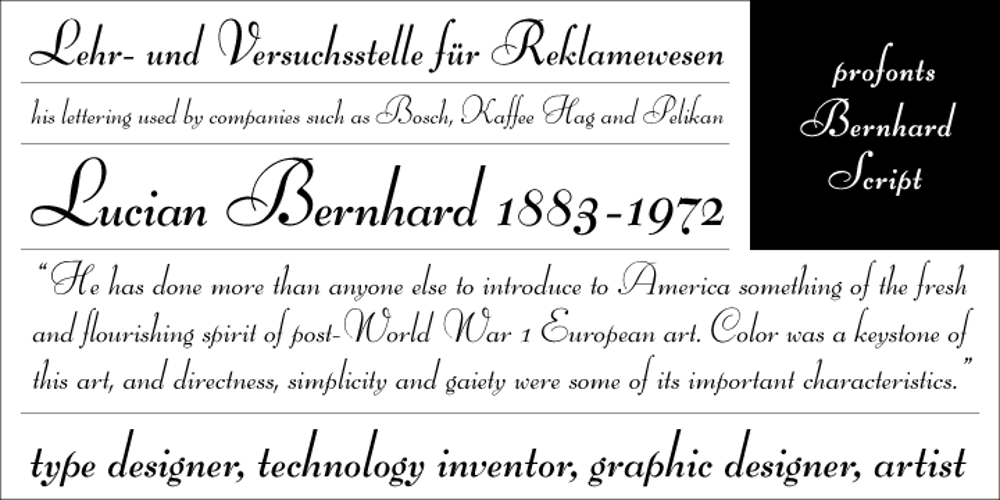
Bernhard Script
Bernhard Script font
Bernhard Script Font Family was designed by Ralph M. Unger and published by profonts. Bernhard Script contains 2 styles and family package options. Bernhard Script (originally Bernhard Sch�nschrift) was originally designed by German designer Lucian Bernhard in 1925/1928 for Bauersche Type Foundry in Frankfurt. It is a French-influenced non-connecting script with a small x-height and large lowercase ascenders. This typeface is his first testimony of his change of work from the boldness of his earlier work to more sophisticated delicacy.